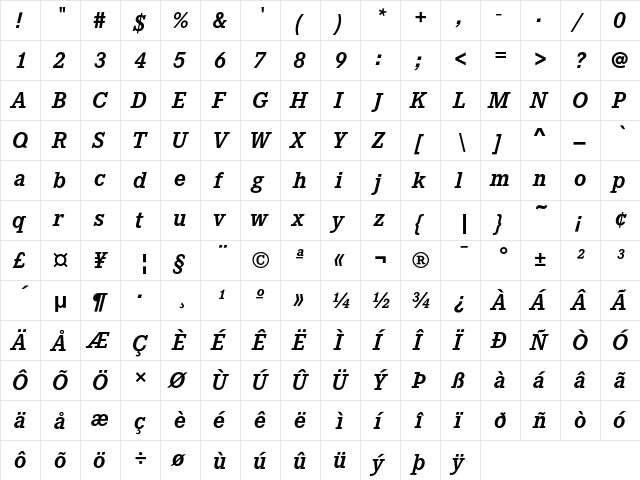
Corporate E Bold Italic Font Preview
Corporate E Bold Italic
Corporate E Bold Italic Font Details
Design Context for Corporate E Typeface
Corporate E offers clean, dependable letterforms without strong stylistic allegiance, making it a practical choice for designers who need flexibility. The dynamic lean of this cut emphasises speed and emphasis in any layout. The heavy weight commands attention and anchors typographic hierarchies.
Pro Tip: Use Corporate E for emphasis, pull quotes, and subheadings where its slanted energy can add rhythm to the layout.